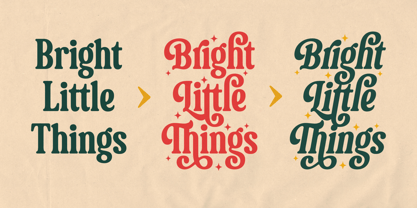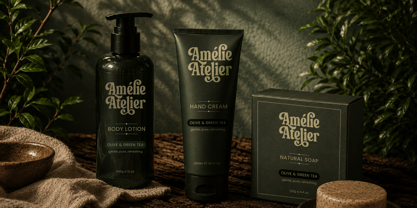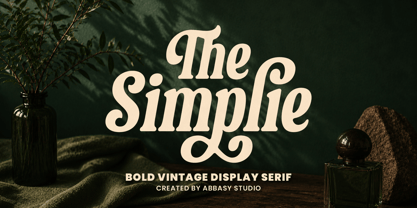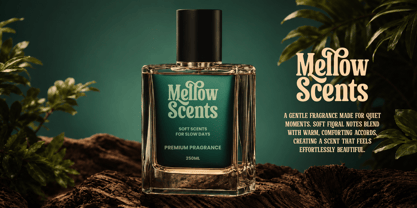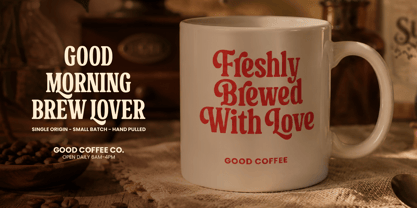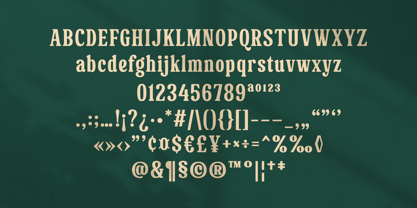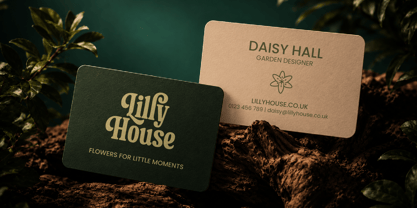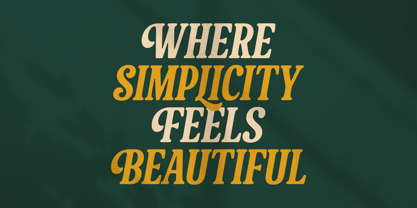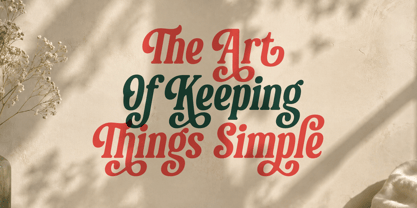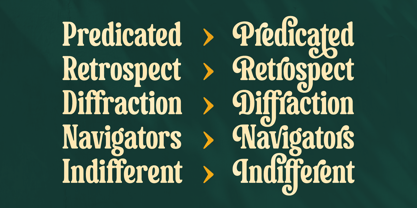
The Simplie
by Abbasy Studio
The The Simplie Font Family was designed by Angga Kristiandri and published by Abbasy Studio. The Simplie contains 2 styles and family package options. More about this family
The Simplie is a versatile bold vintage display serif that blends nostalgic character with a playful and contemporary attitude. Its bold shapes, distinctive serifs, and expressive curves make it ideal for typography that needs to stand out.
Available in Regular and Italic, The Simplie offers flexibility for creating strong headlines, elegant wordmarks, expressive logos, editorial titles, packaging, posters, invitations, and other display applications.
With 500+ glyphs and stylistic alternatives, The Simplie provides additional flexibility for creating unique and personalized typographic compositions.
Designers: Angga Kristiandri
Foundry: Abbasy Studio